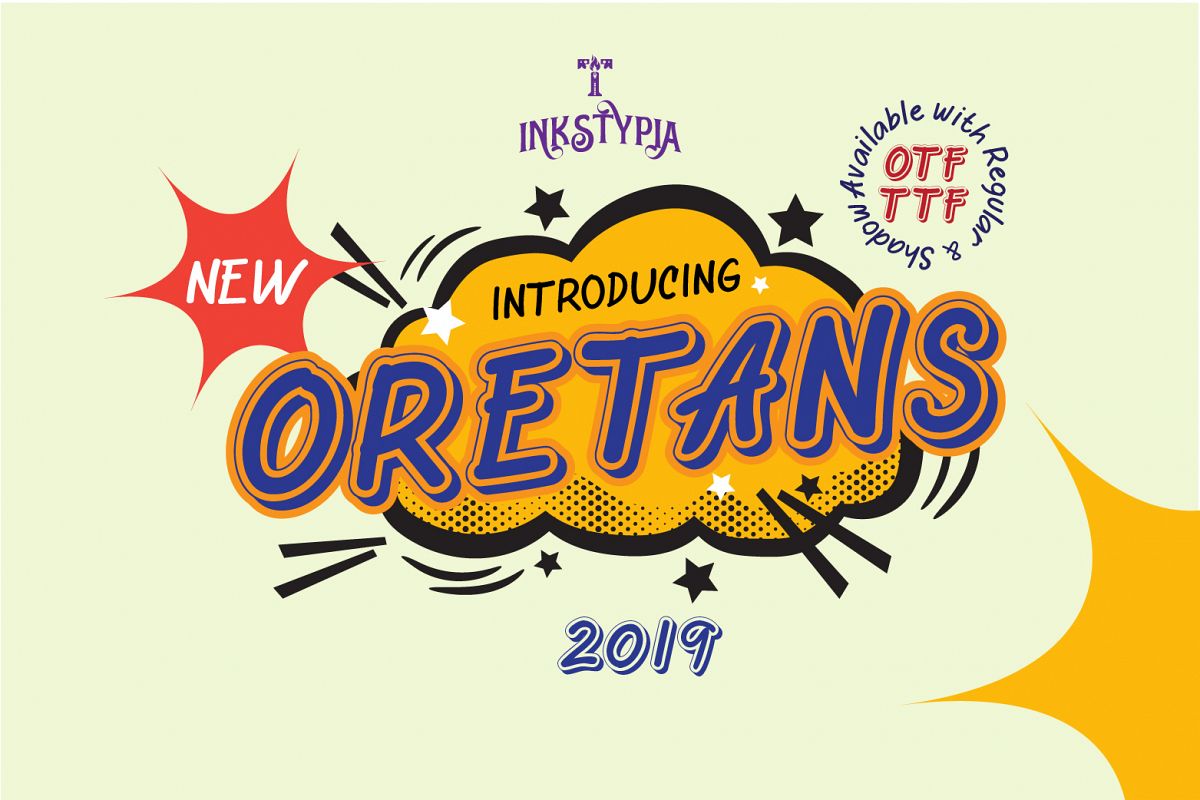
Oretans
Introducing Oretans, it's a typeface inspired by handwritten scratches, a simple, straightforward and childish. This
letter is equipped with a 3D style that is suitable for your display letter needs, available in TTF and OTF formats and
also comes with multi-language features.